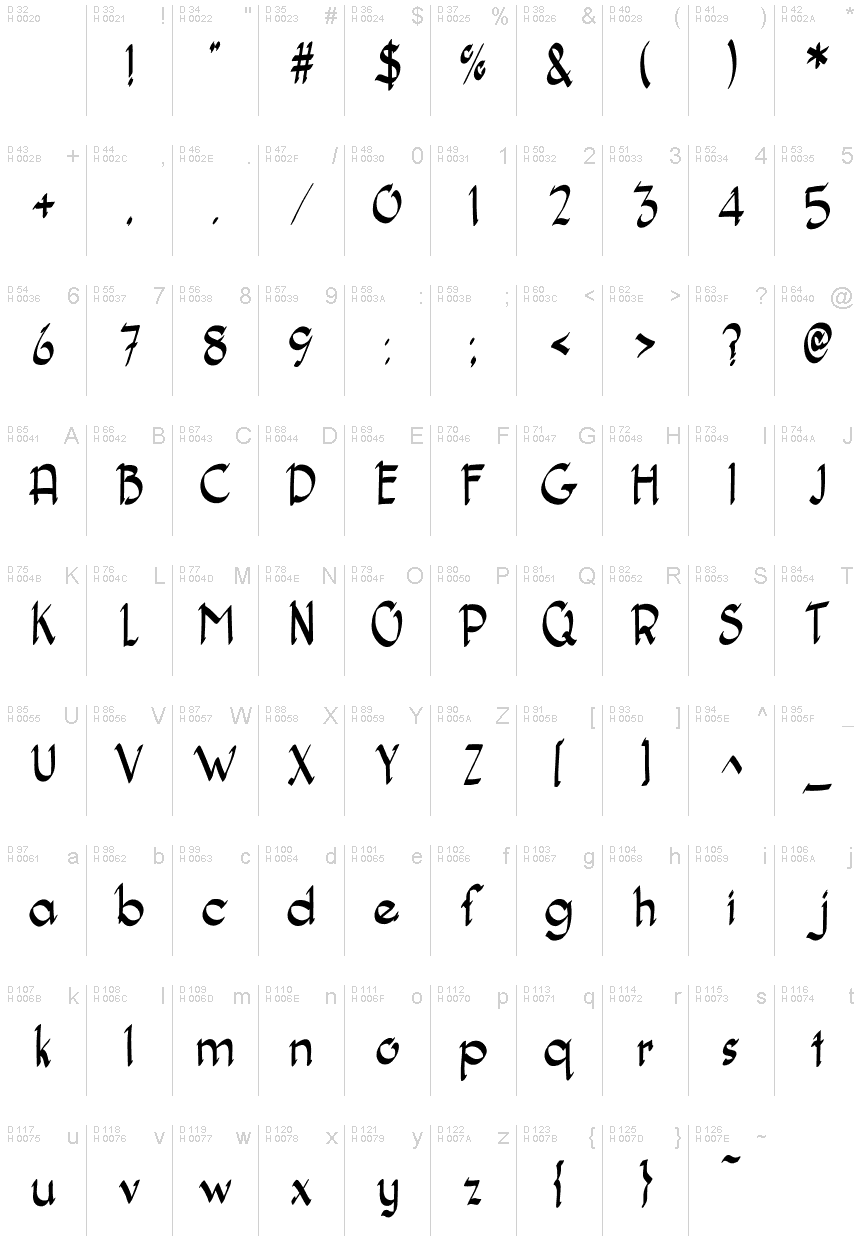
Quick Smart
Quick Smart, a captivating handwritten font by Lontong Lodeh, brings an authentic touch to your creative projects. With its organic strokes and lively curves, this versatile font adds a personal and relatable feel to any design.
Whether you're working on a whimsical children's book, a trendy fashion blog, or an inviting café menu, Quick Smart is the perfect choice to engage your audience. Its playful yet legible style makes it suitable for branding, packaging, social media graphics, and more. Let Quick Smart infuse your projects with charm and charisma!